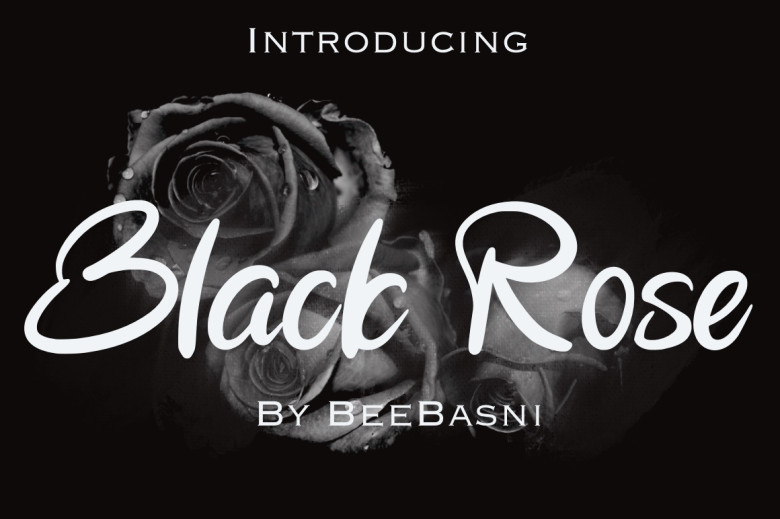
Black Rose is an exquisite handwritten font with round letters. Its distinct yet flowing style lends itself to many applications; Black Rose looks especially striking when applied against busy backgrounds or used as an attention-grabbing headline! Black Rose will enhance any project!
Black Rose Handwritten Script Font